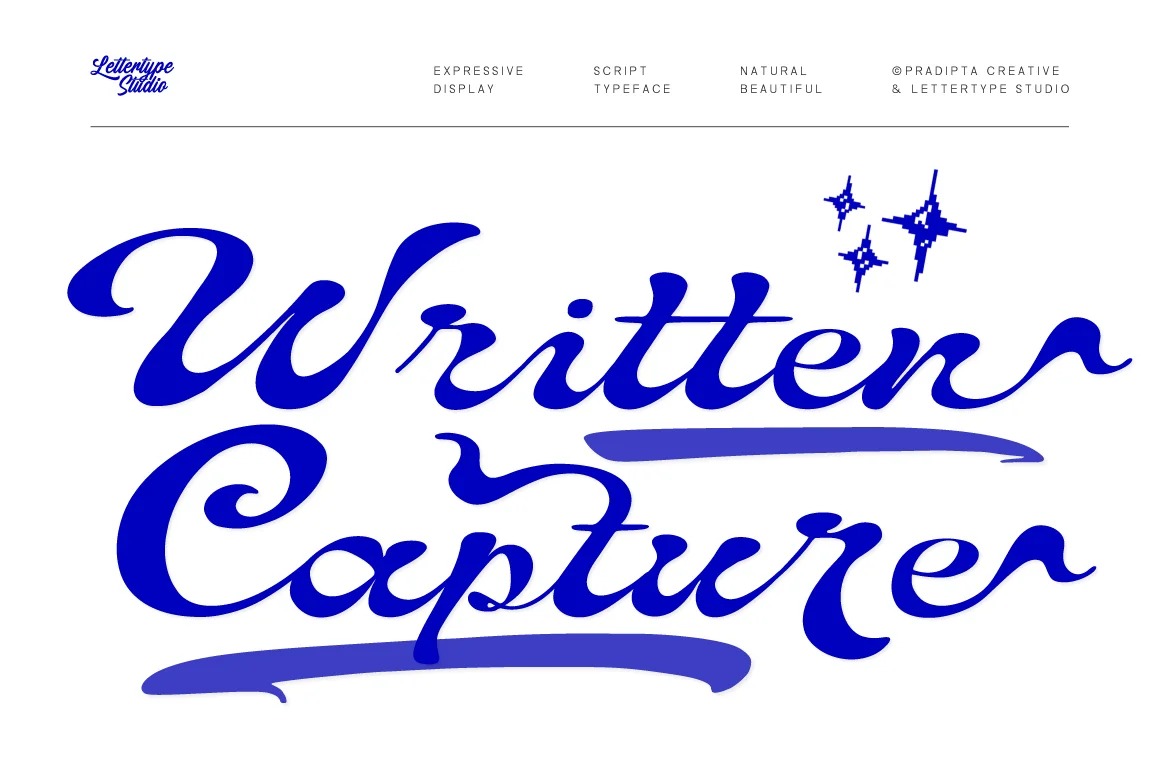
Written Capture Font
Written Capture Font is a stylish typeface that enhances visual appeal and works effortlessly in many design contexts. Written Capture was developed to reflect the expressive side of handwriting. Rather than aiming for perfect uniformity, the typeface embraces subtle irregularities that add warmth, movement, and personality to each word.
Throughout its design process, attention was placed on stroke balance and letter connections. These details help maintain visual flow while allowing each character to stand confidently in display settings.
Written Capture is intended for creative projects that value voice and emotion. From brand identities and packaging to editorial highlights and promotional graphics, it offers a handwritten presence that feels natural and intentional.